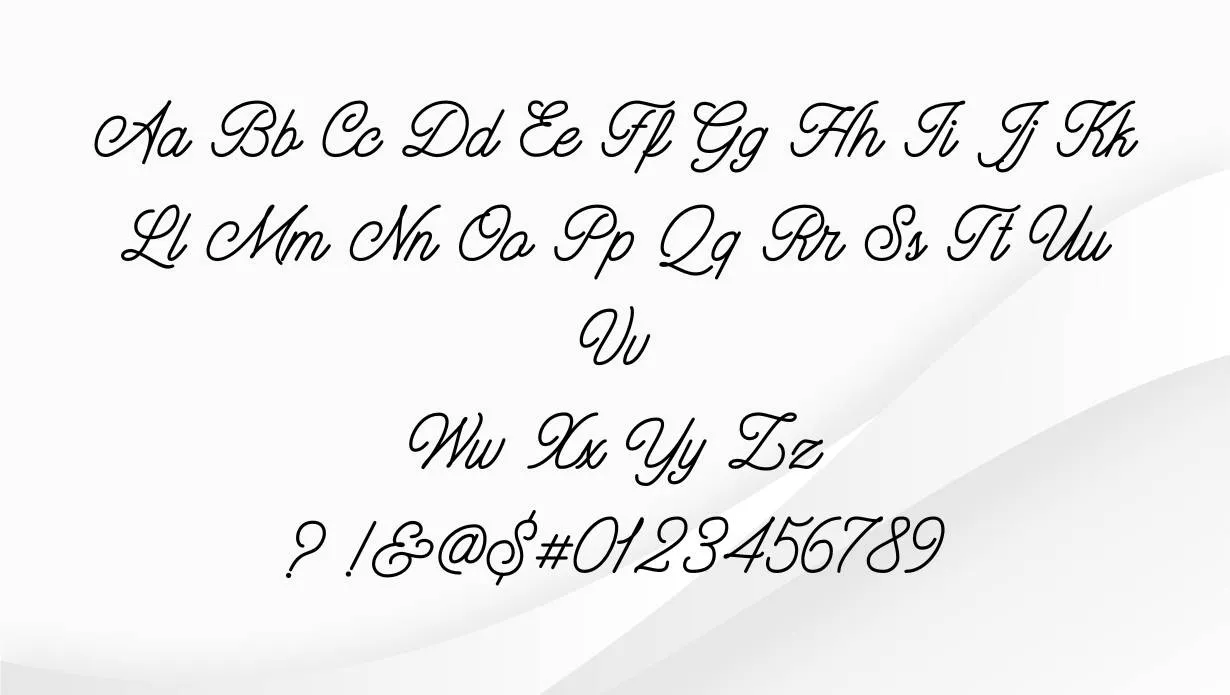
The Hatterline font is both creative and unique, making it an excellent option for artistic documents in MS Word, such as poetry collections or creative writing.
In Adobe Photoshop, Hatterline is excellent for adding a handcrafted and distinctive touch to designs, such as logos or quotes. Its artistic and unique appearance gives a sense of individuality to any design.